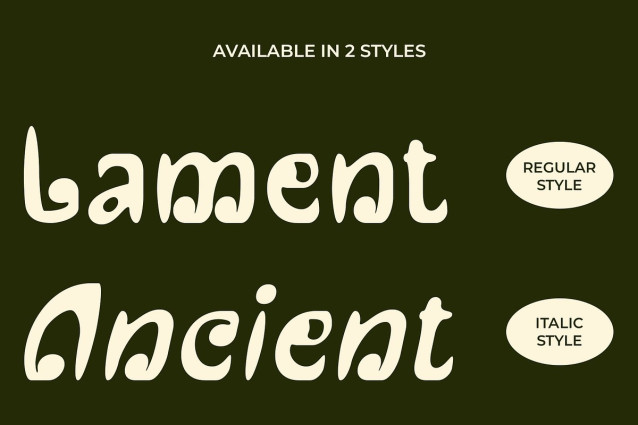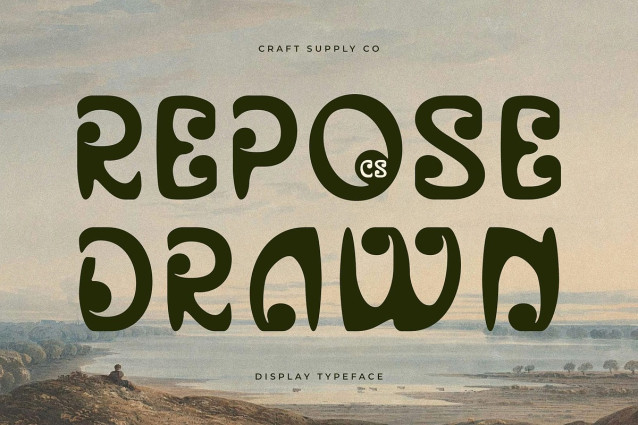
CS Repose Drawn Font is a display sans serif font featuring bold, decorative shapes that immediately capture attention. Its funky and eye-catching design creates a strong, characterful impression, perfect for projects that want to stand out.
Handmade Drawn Texture for Expressive Flair Enhanced with a subtle drawn effect, each character carries a handcrafted texture, adding depth, personality, and artistic expression. The handmade detailing brings the font to life, making it lively, unique, and visually engaging.
Funky and Energetic Style This artistic and handmade font combines bold, unconventional letterforms with creative, decorative styling. This balance of structure and artistry ensures a distinctive, modern, and energetic look that draws attention and communicates creativity.
Ideal for Bold and Creative Projects Perfect for posters, branding, headlines, or other creative projects, this expressive and dynamic font delivers a strong, dynamic, and memorable presence. Its bold forms and artisanal texture make it ideal for designs that aim to be fun, unconventional, and visually striking.
Elevate Designs with Artistic Boldness With its decorative shapes, handcrafted details, and playful energy, this creative and eye-catching font transforms any project into a visually compelling statement. It’s a versatile display font that blends boldness, artistry, and character for maximum impact.